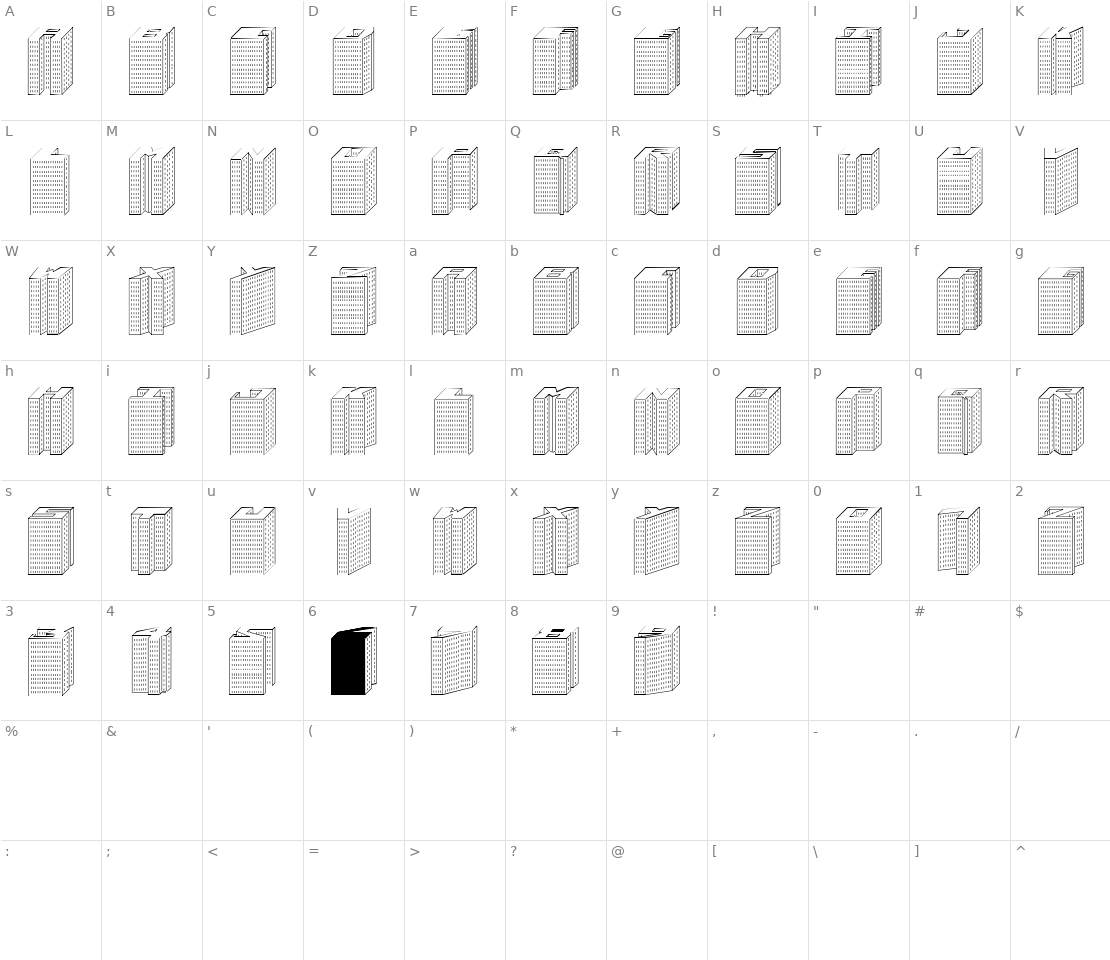
Block 1900
Block 1900 is a decorative display face by Ronan le Guevellou where each letter is constructed from 3D architectural blocks, giving the whole alphabet a perspective-drawn, building-like quality. The geometric forms feel like isometric illustrations as much as letterforms, with visible depth and structure that make it genuinely unusual. Best reserved for headlines, posters, and display use where the intricate dimensional detail can read clearly.